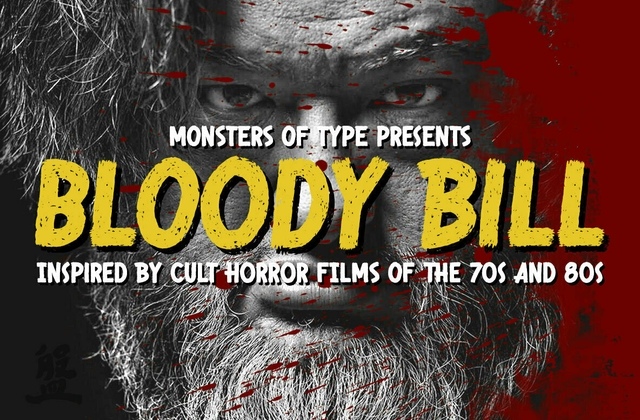
Bloody Bill Font
Bloody Bill Font is perfect for various design applications including western outlaw entertainment venues, wild west themed restaurants, cowboy movie titles, frontier saloon signage, rodeo event promotions, outlaw museum exhibitions, western adventure gaming interfaces, frontier justice historical materials, gunslinger entertainment branding, and authentic Old West tourism campaigns. This rugged typeface excels in projects requiring outlaw authenticity and frontier rebellion that captures the dangerous excitement and lawless spirit of America's most notorious frontier desperados.
What makes Bloody Bill Font so exciting is its raw embodiment of outlaw rebellion and frontier lawlessness through letterforms that suggest weathered wanted posters and bullet-riddled saloon signs from the wildest days of the American frontier. The font features distressed construction that mirrors sun-bleached wood and desert wear, aggressive proportions that communicate danger and unpredictability, and distinctive character details that evoke the rough-hewn reality of frontier justice and outlaw survival. Its distinctive desperado character and frontier authenticity make it perfect for entertainment brands seeking to communicate rebellion, danger, and the thrilling appeal of outlaw legends and frontier lawlessness.
Bloody Bill Font family includes multiple outlaw weights and frontier variations that enhance its versatility for different western applications. Each style maintains the font's signature desperado character while providing options for various frontier design approaches. The family also features western outlaw decorative elements, frontier symbols, and lawless ornaments that can be combined with the letterforms to create cohesive Old West outlaw design systems.
Whether you're developing western entertainment brands, frontier-themed venues, or outlaw heritage communications, Bloody Bill Font Free Download provides authentic typography that captures the dangerous excitement of frontier outlaws and celebrates the legendary rebels who defined the wildest era of American history. This typeface transforms ordinary communications into wanted poster proclamations that promise authentic western adventure and outlaw excitement. The font's desperado appeal makes it particularly effective for western entertainment venues, frontier tourism attractions, and businesses targeting audiences who appreciate authentic outlaw history and western rebellion.
Bloody Bill Font stands out by delivering genuine outlaw authenticity that feels connected to real frontier history rather than romanticized western mythology. Its carefully crafted desperado proportions and frontier details ensure that designs feel authentically connected to actual outlaw heritage and frontier lawlessness. From western entertainment branding to frontier museum materials, this font provides designers with tools to create communications that celebrate outlaw legend and inspire appreciation for frontier rebellion through rugged, desperado-inspired typography that's wanted dead or alive.